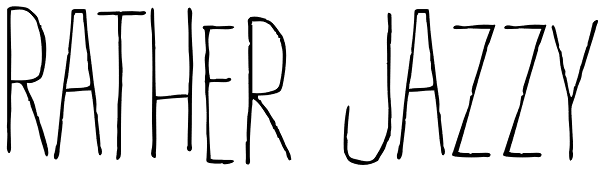
Rather Both
Rather Jazzy, Rather Loud: a family of two quite distinct fonts that perform together handsomely well. Both fonts include 2 versions for each letter, easily reachable through keyboard upper and lower keys. They also come packed with Contextual...
Rather Jazzy
Rather Loud